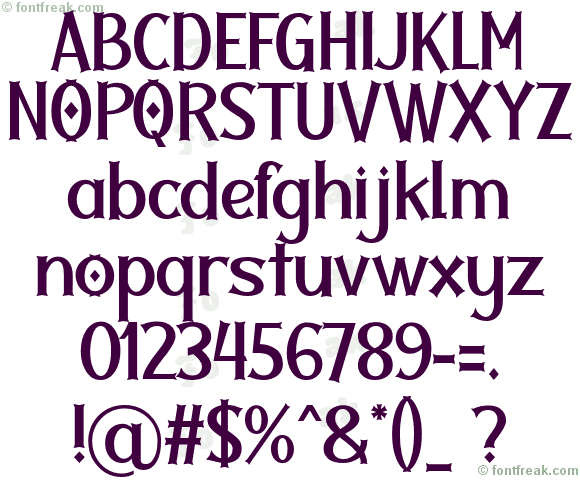
Twolank
Twolank, crafted by the talented Situjuh Nazara, is a striking display font that effortlessly combines modern aesthetics with a touch of elegance. This typeface falls into the decorative category, featuring unique characteristics that make it stand out. The font showcases a bold stroke weight, providing a strong presence on any medium. Its high contrast between thick and thin lines adds an element of sophistication, while the carefully spaced letters ensure readability, making it suitable for various design applications.
The Twolank font is versatile, making it ideal for a range of use cases. It shines in wedding invitations, where its elegant yet bold style can capture the romantic essence of the occasion. Additionally, it works beautifully for movie posters, lending a dramatic flair that draws attention. Restaurant menus will benefit from its distinctive look, enticing diners with an appealing presentation of the dishes. Furthermore, this font is perfect for branding projects aimed at small businesses wanting to create a memorable identity. Graphic designers and content creators will find Twolank particularly appealing due to its unique character and adaptability.
What truly sets the Twolank font apart is its ability to convey both strength and elegance simultaneously. Its decorative elements, such as the distinctive serifs and unique letterforms, add a layer of personality that can elevate any design project. Whether you're working on a sophisticated event or a bold branding campaign, Twolank is a font that can enhance your creative vision. For those looking to incorporate this exceptional typeface into their work, a Twolank font free download is available, allowing you to explore its full potential in your designs.